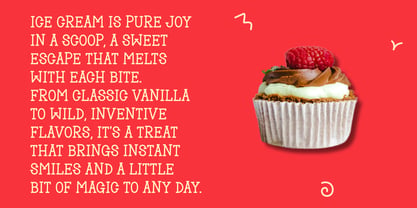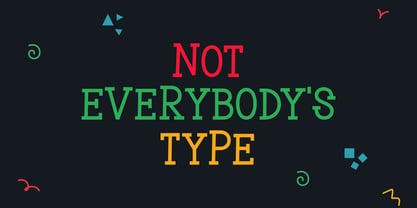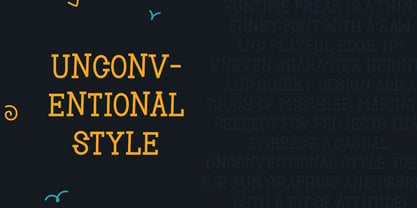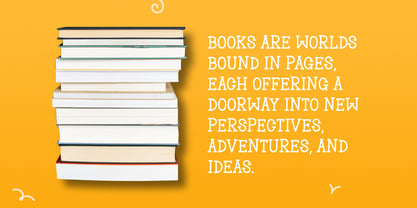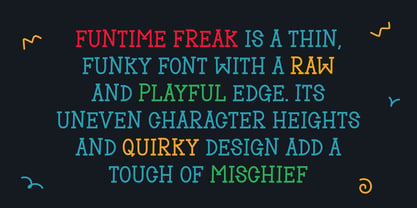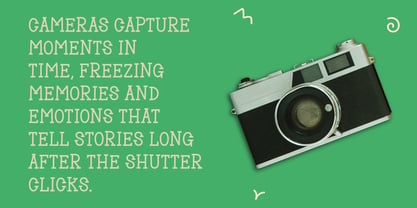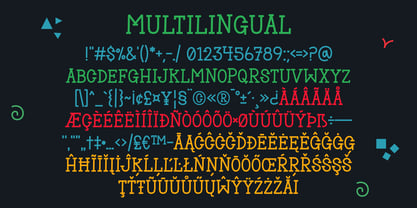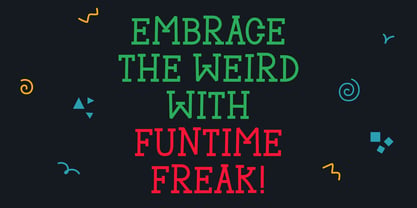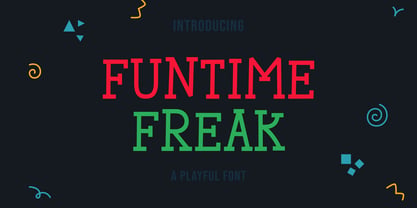
Funtime Freak
by RADesigns21
Funtime Freak is a playful slab serif typeface characterized by uneven letter heights and a delightfully quirky personality. Its irregular forms and hand-crafted feel infuse designs with a lively, energetic character that distinguishes it from traditional serif fonts. Ideal for posters, children's projects, packaging, book covers, stickers, social media graphics, and creative branding, Funtime Freak adds a sense of fun and spontaneity to any layout. The bold slab serif structure ensures strong presence and readability, while the uneven rhythm contributes charm and individuality. Whether you're crafting something whimsical, expressive, or a touch unconventional, Funtime Freak offers a distinctive look brimming with character.